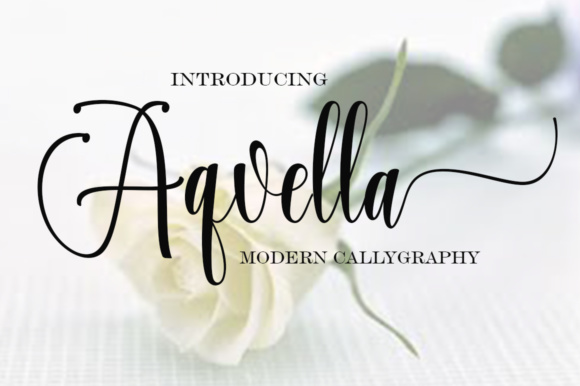
The Aqvella Font: A Modern Calligraphy Marvel
I’ll never forget the project that led me to discover the Aqvella font. I was working on a branding campaign for a luxury boutique hotel, and I needed a font that would convey elegance, sophistication, and a touch of modern whimsy. After hours of scouring font libraries and testing dozens of options, I stumbled upon Aqvella – and it was love at first sight! 💫
So, what makes Aqvella so special? Let’s dive into the good stuff and a few quirks I’ve encountered.
- ✨ Unique and Elegant Design: Aqvella boasts a modern writing style that adds a touch of sophistication to any project.
- ✅ Excellent Readability: Despite its elegant nature, Aqvella remains highly readable, even at smaller font sizes.
- 💫 Versatility: This font is perfect for a wide range of projects, from luxury branding to wedding stationery and beyond.
- ⚠️ Limited Character Set: Aqvella might not have an extensive character set, which could limit its use in projects requiring a wide range of special characters.
- 🤔 Kerning Issues: As with any font, you might encounter kerning issues when pairing Aqvella with other fonts or at certain font sizes.
The Story Behind Aqvella
Legend has it that Aqvella was inspired by the flowing waters of a serene Italian lake. The font’s designer, an avid traveler and calligraphy enthusiast, sought to capture the essence of modern elegance and sophistication in this beautiful script font.
| Font Name | Aqvella Font |
| Author | AsaharStudio |
| What makes Aqvella unique? | Aqvella boasts a modern writing style with excellent readability, making it perfect for a wide range of projects. |
| Is Aqvella suitable for body text? | While Aqvella is elegant and readable, it’s best suited for headlines, titles, or short paragraphs. For longer body text, consider a more traditional serif or sans-serif font. |